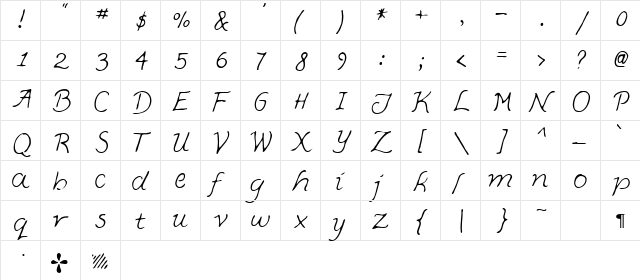
Simple Regular
Design Context for Simple Typeface
Simple is a composed and adaptable typeface that performs quietly and consistently across a wide range of design contexts.